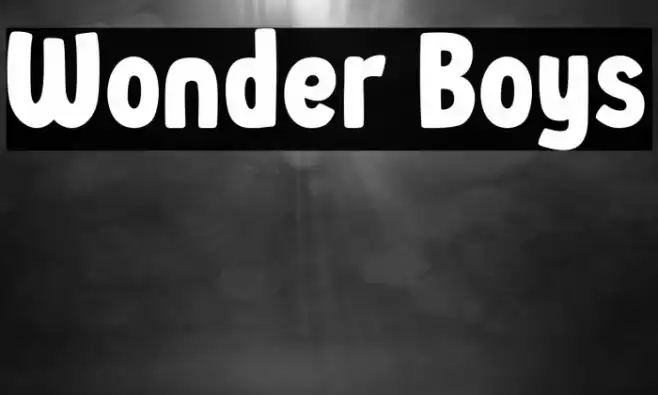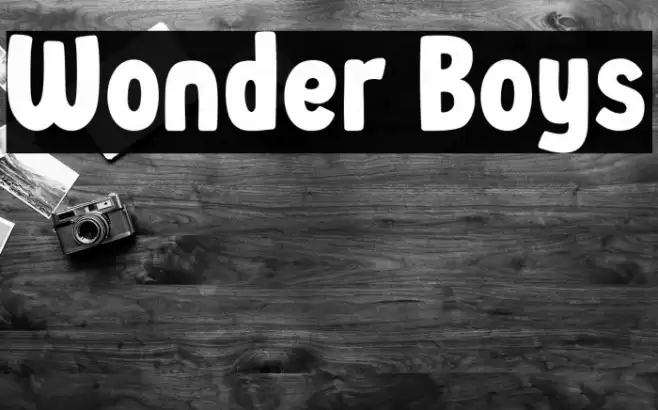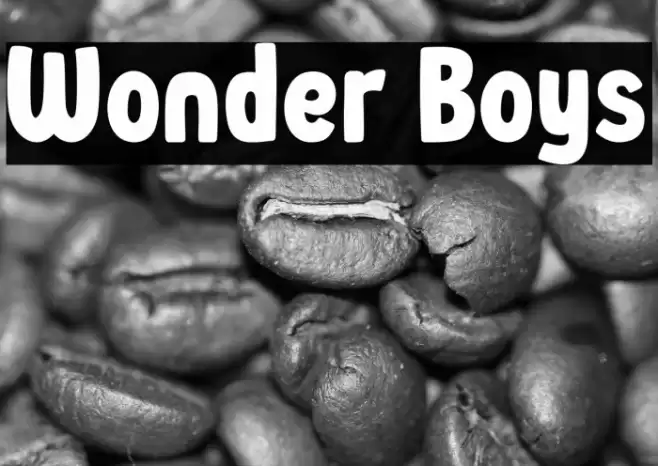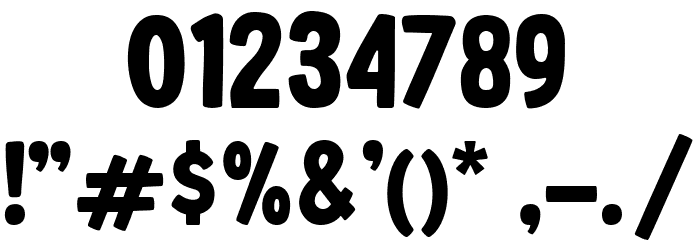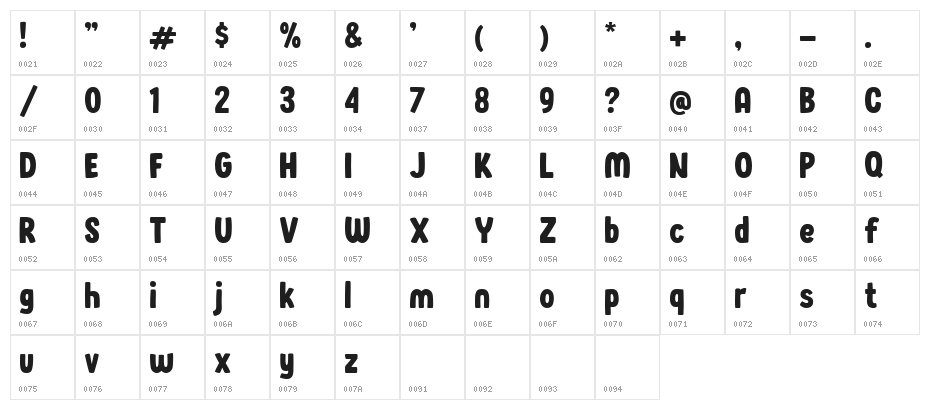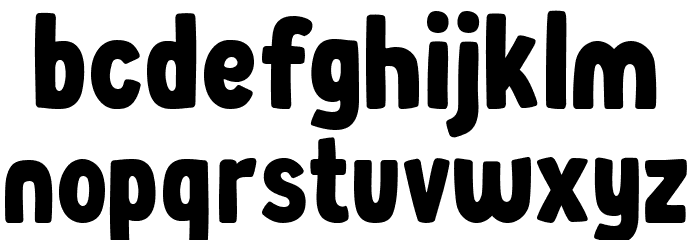
Wonder Boys Font
Wonder Boys Description
This font features a bold and playful design with rounded edges and a slightly condensed appearance. The characters are thick and uniform, giving a sense of stability and friendliness. The uppercase and lowercase letters maintain a consistent style, with a slight quirkiness in the curves and terminals. Numbers and special characters are designed to match the overall playful aesthetic, making them suitable for casual and fun applications. The font's boldness ensures high readability, while its unique style adds character to any text.
A bold, playful font with rounded edges and a slightly condensed style from Cartoon fonts.
- Proposed Projects: Ideal for children's books, playful branding, posters, and social media graphics.
- Overall Style: Playful, Casual